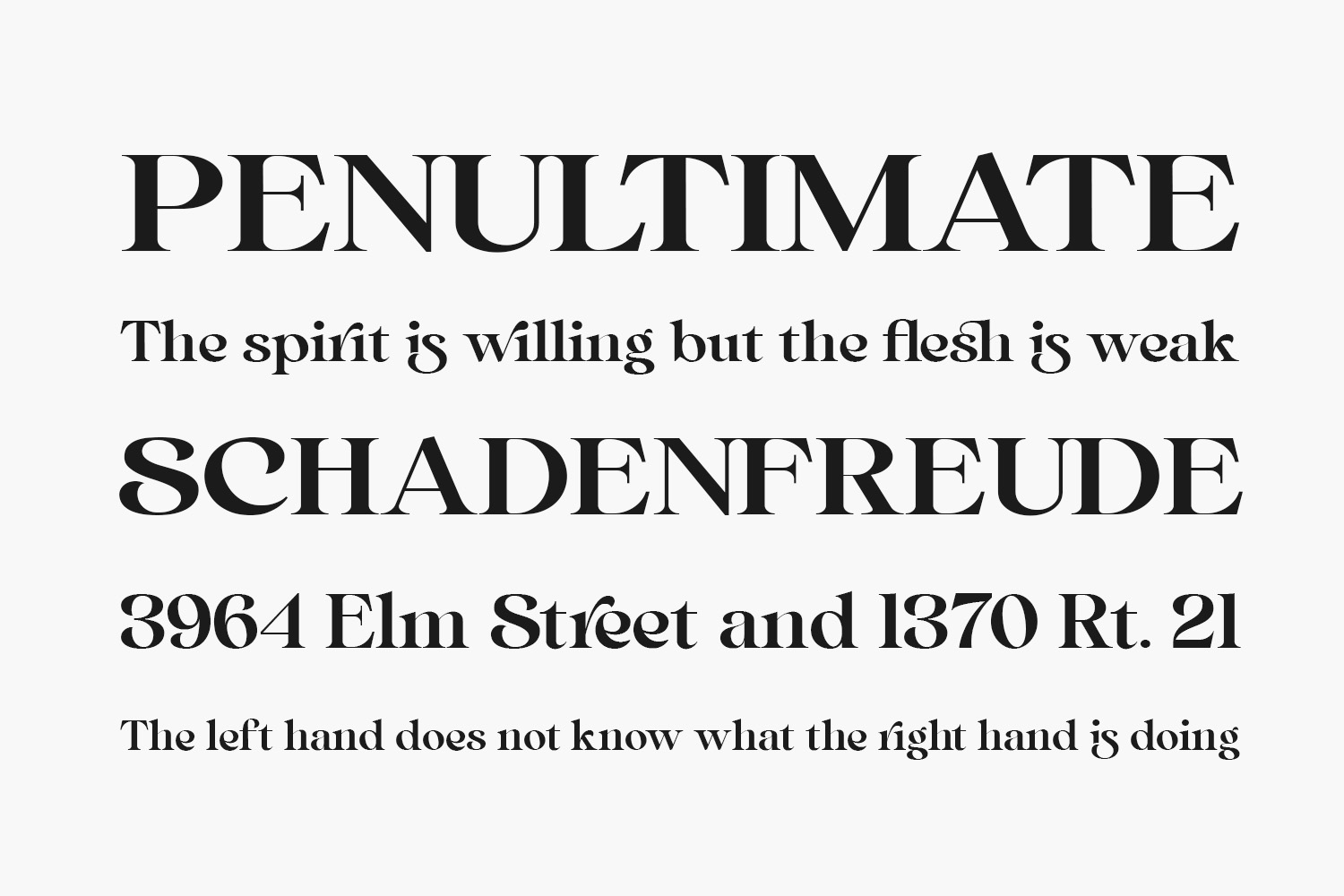
Vanilla Ravioli Free Font presents itself as a refined and enchanting serif font imbued with a stylish flair. Meticulously crafted for opulent, graceful, and distinctly feminine projects, this typeface is an impeccable choice for crafting contemporary, sophisticated designs that exude a sense of chic allure. Vanilla Ravioli Free Font is free for personal use only. Please purchase the full version for commercial use.
Designed by Pentagoni Studio